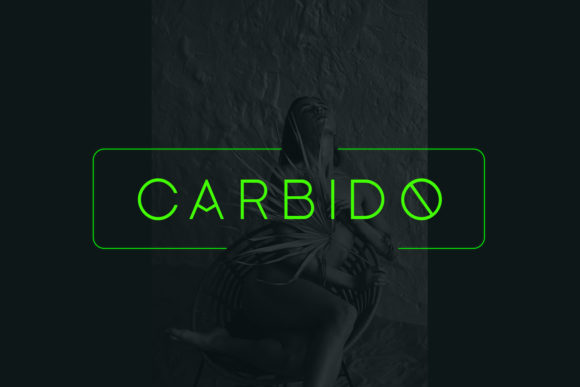
Introducing Carbido Font: The Ultimate Modern Sans Serif for Designers and Crafters
In the world of typography, a font can make or break a design. For designers and crafters looking for a modern and sleek sans serif font to elevate their projects, look no further than Carbido. This unique and versatile typeface is perfect for headlines, big text, branding, logotypes, and display usage. With its dependable and uncompromising style, controlled letter forms, and modern touches, Carbido is the perfect addition to any design.
What Makes Carbido Stand Out?
Carbido boasts a distinctive blend of strong lines and smooth curves, making it a standout in the world of sans serif fonts. Its neat and sleek accent adds a touch of sophistication to any design, making it perfect for crafty ideas that require a modern and authoritative look. The font’s controlled letter forms ensure that each character is clear and legible, even at large sizes, making it ideal for headlines and display text.
A Family of Fonts at Your Fingertips
One of the most exciting features of Carbido is its range of weights, allowing designers to experiment with a wide range of applications. Each font in the family can be used independently, offering a unique and lively feel that is authoritative in its own right. Whether you’re looking for a bold statement or a more subtle look, Carbido has a weight to suit your needs.
Carbido is a versatile font that can be used in a variety of contexts, from branding and logotypes to headlines and display text. Its modern and sleek design makes it perfect for:
- Headlines and titles: Add a touch of sophistication to your headlines with Carbido’s bold and authoritative style.
- Branding and logotypes: Create a lasting impression with Carbido’s unique and memorable design.
- Display text: Make a statement with Carbido’s large and clear characters, perfect for billboards, posters, and more.
- Crafty ideas: Add a modern and sleek accent to your crafty projects, from DIY tutorials to handmade products.
Why Choose Carbido?
So why choose Carbido over other sans serif fonts? Here are just a few reasons:
- Unique design: Carbido’s blend of strong lines and smooth curves sets it apart from other fonts.
- Versatility: With a range of weights and a wide range of applications, Carbido is a font that can be used in many different contexts.
- Legibility: Carbido’s controlled letter forms ensure that each character is clear and legible, even at large sizes.
- Modern and sleek: Carbido’s design is perfect for designers and crafters looking for a modern and authoritative look.
In conclusion, Carbido is a unique and modern sans serif font that is perfect for designers and crafters looking to elevate their projects. With its blend of strong lines and smooth curves, controlled letter forms, and modern touches, Carbido is a versatile font that can be used in a wide range of applications. Whether you’re looking for a bold statement or a more subtle look, Carbido is the perfect choice.